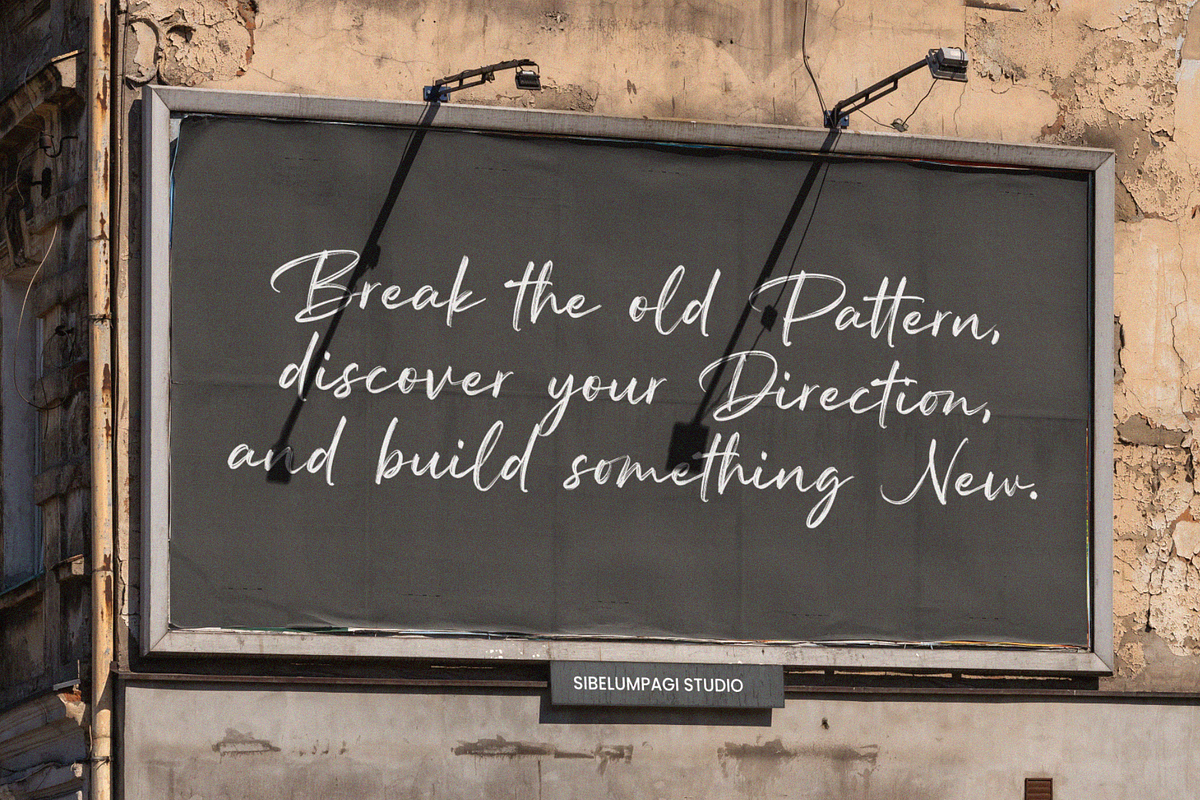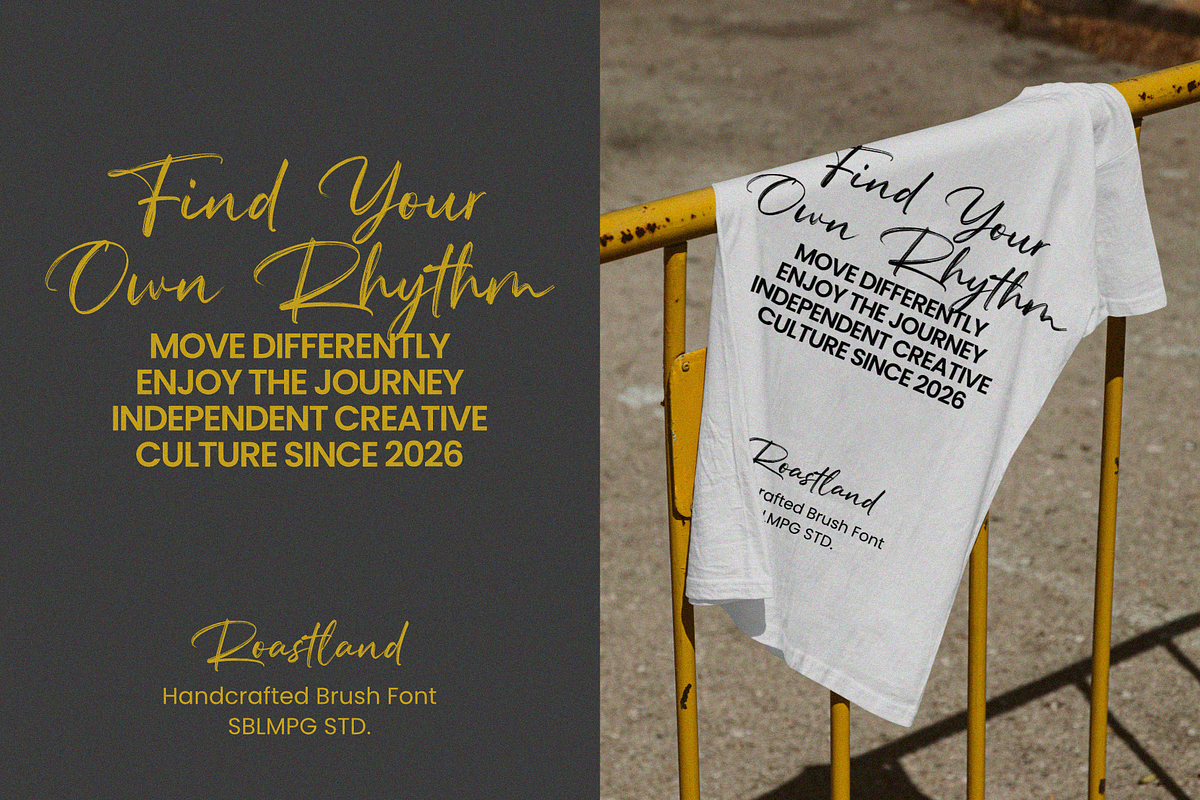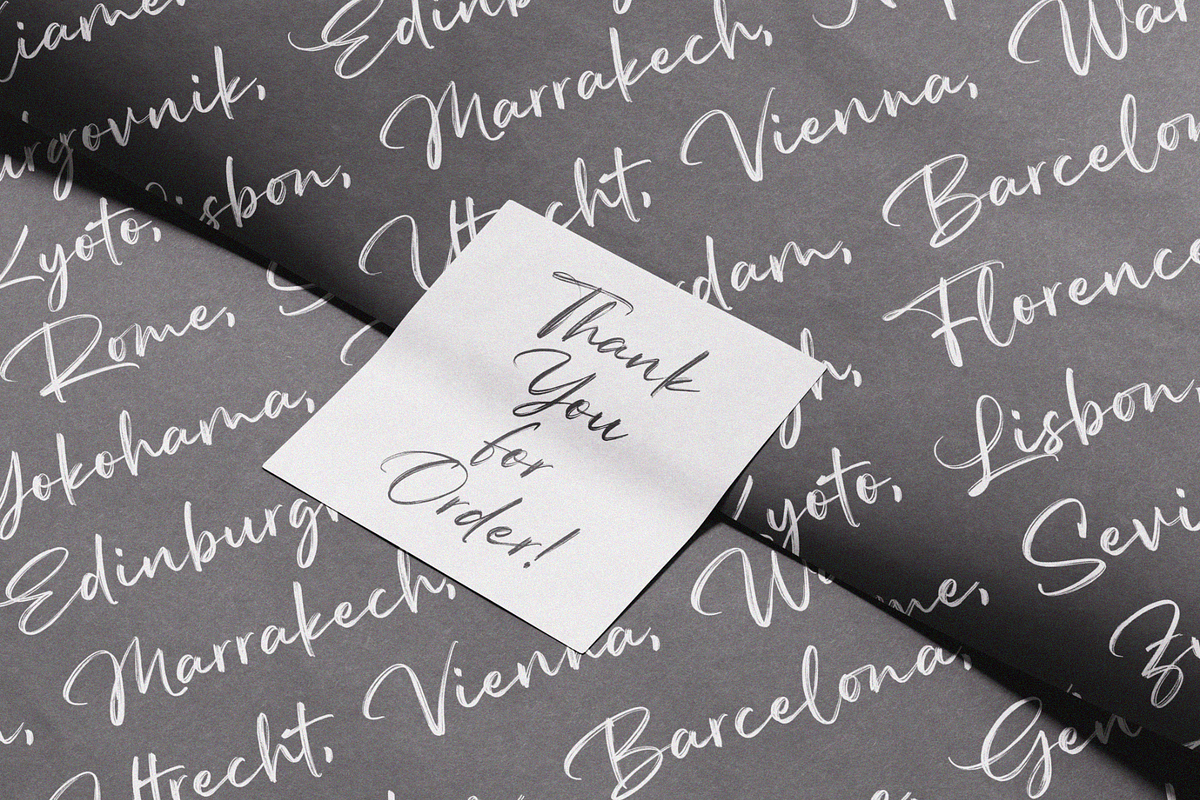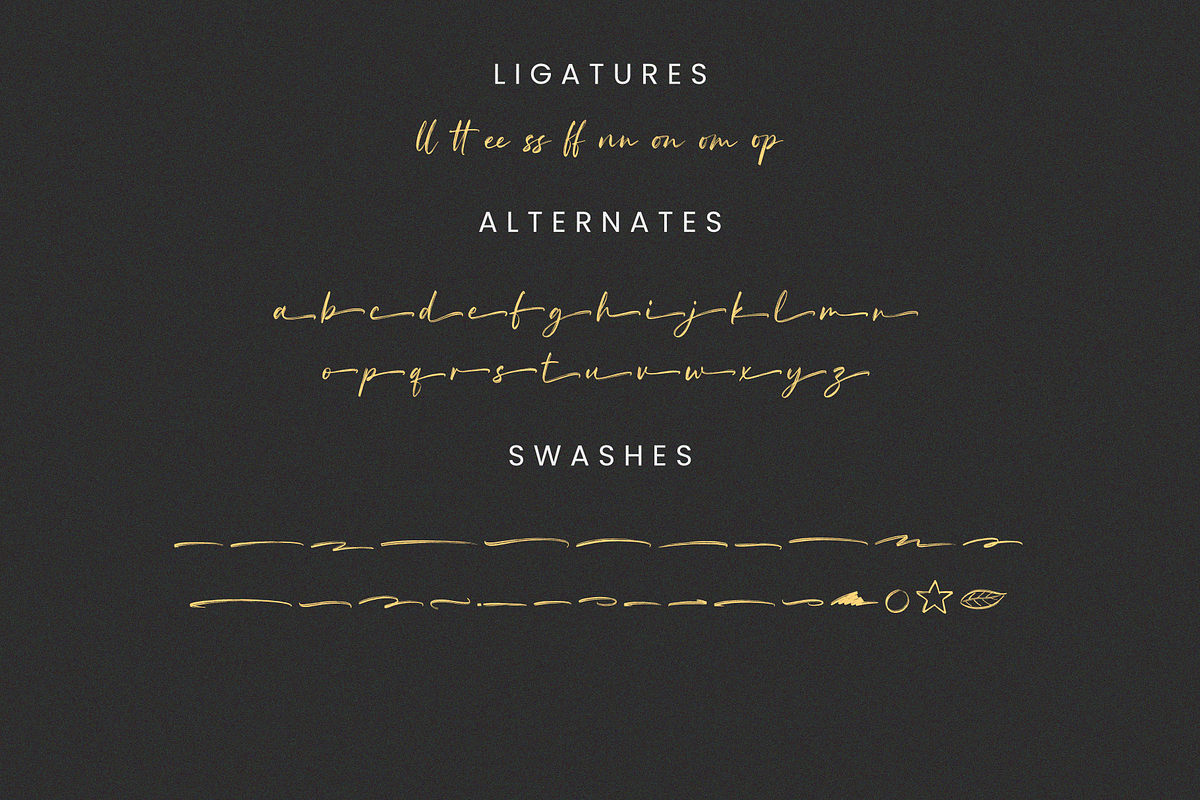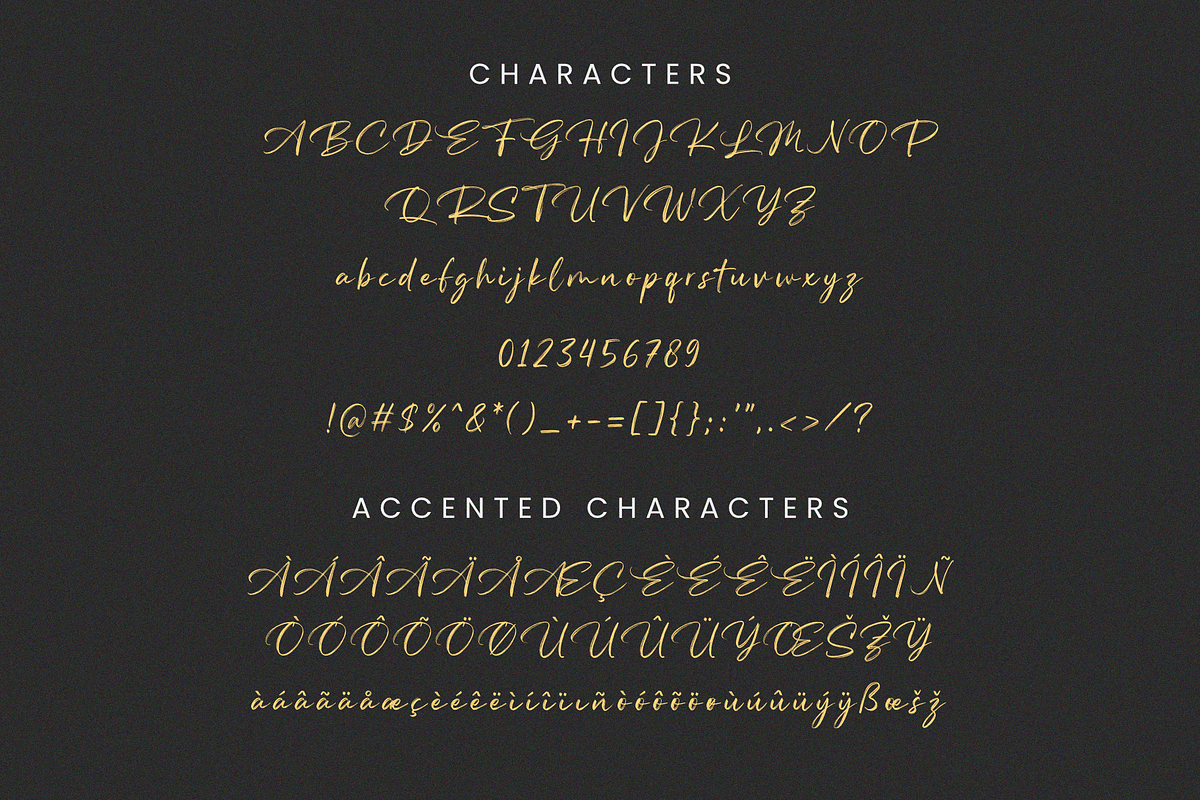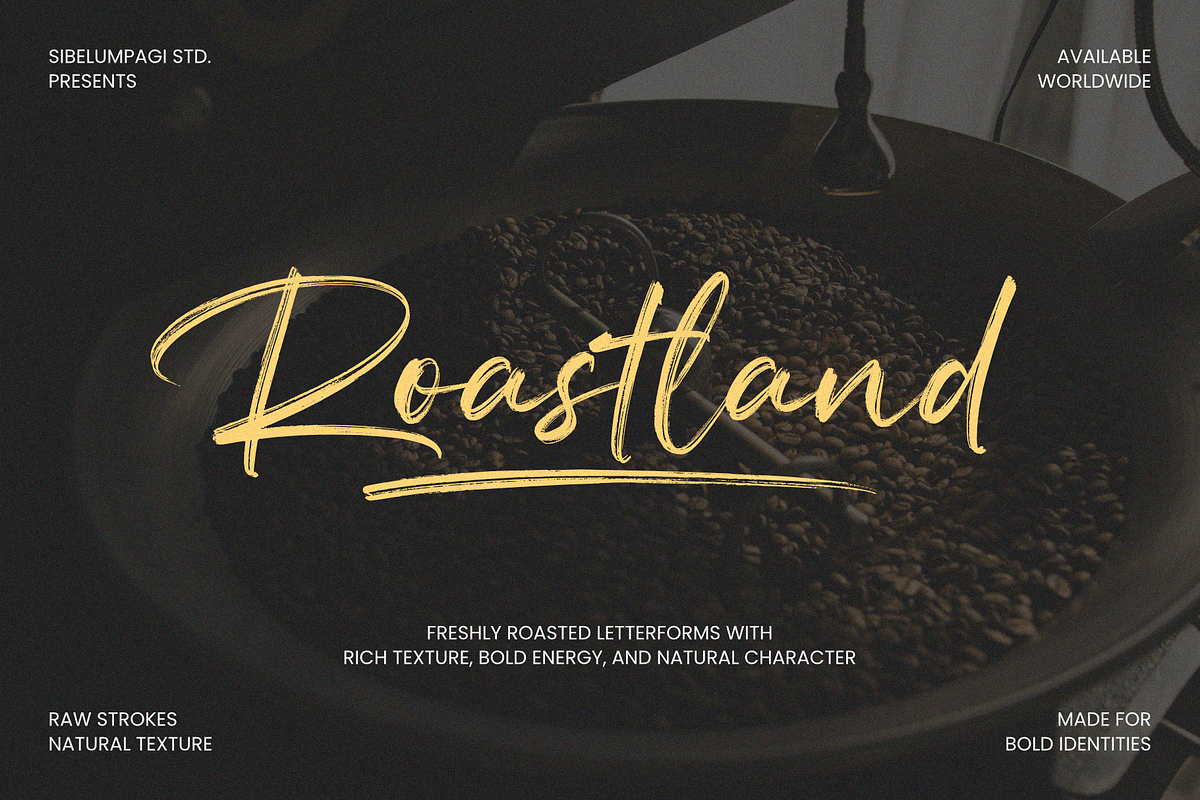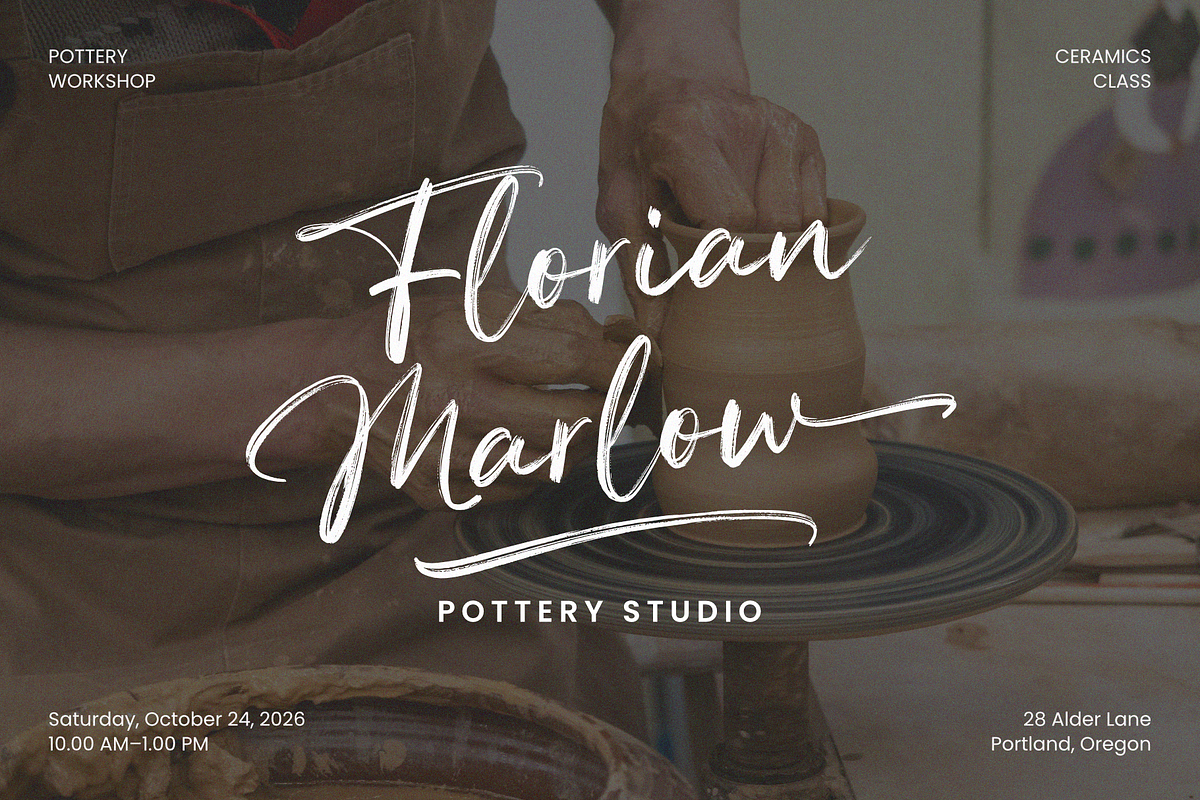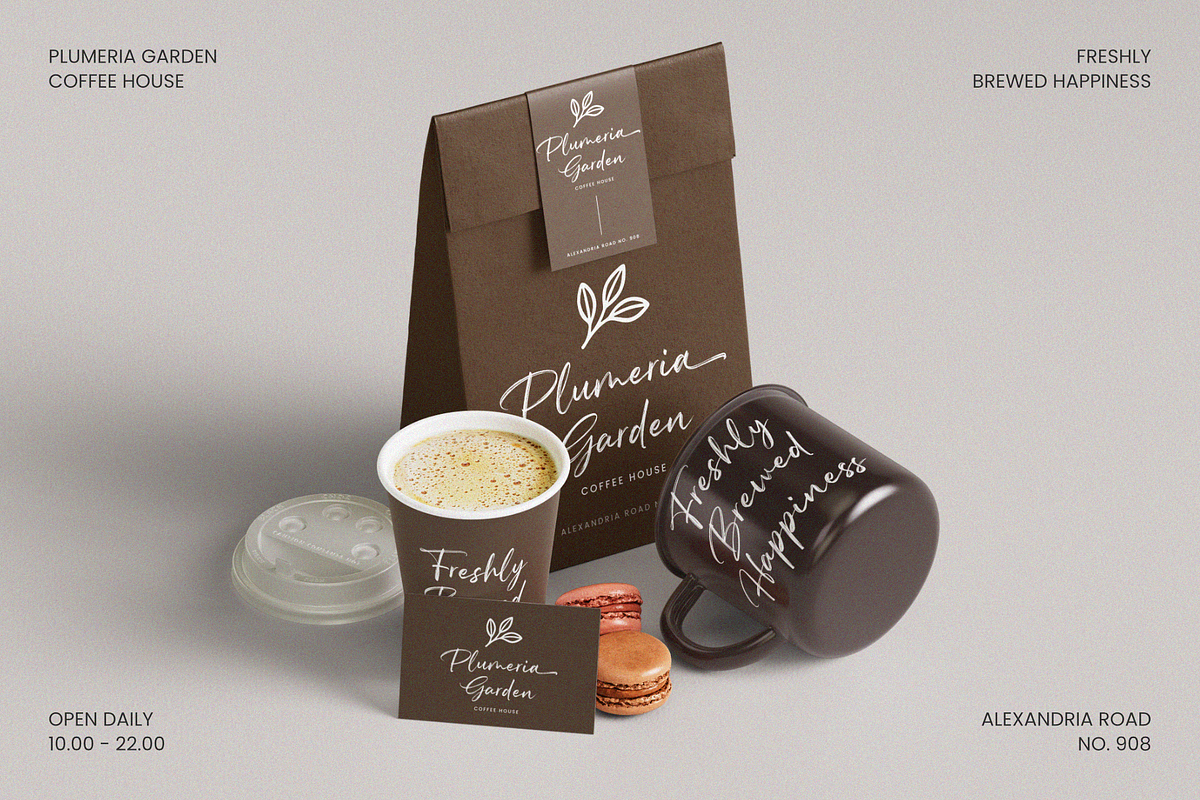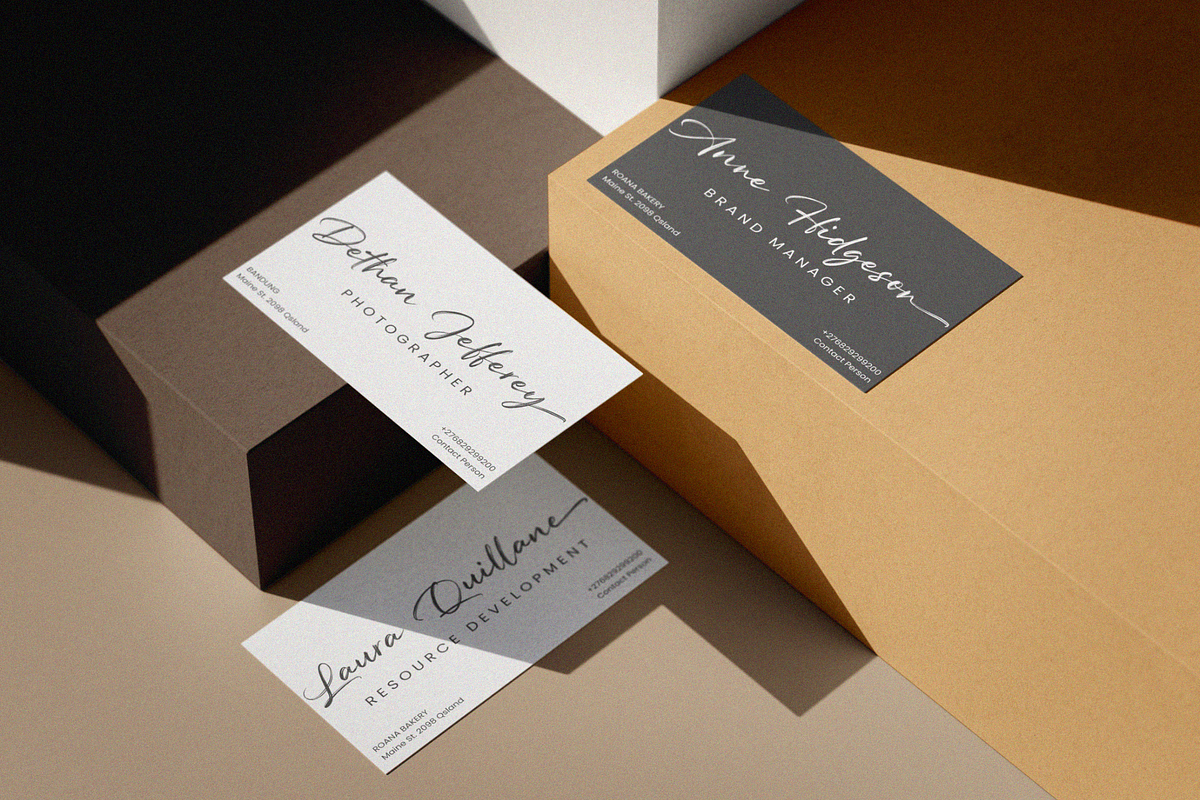
Roastland - Natural Brush Font
Roastland is a natural brush font filled with raw movement, expressive strokes, and authentic handmade texture. Its bold letterforms retain the imperfect details of real brush lettering, giving every word a strong, energetic, and personal character.
Designed to make a statement, Roastland works beautifully for branding, packaging, posters, apparel, merchandise, advertising, social media, book covers, and other display projects that need a confident handcrafted touch. Its flowing shapes and natural rhythm make it equally suitable for short headlines, quotes, and striking typographic compositions.
Roastland includes uppercase and lowercase letters, numerals, punctuation, symbols, currency signs, and multilingual accented characters—giving you everything needed to create bold and memorable designs.
Bring natural energy and authentic brush character to your next creative project with Roastland.